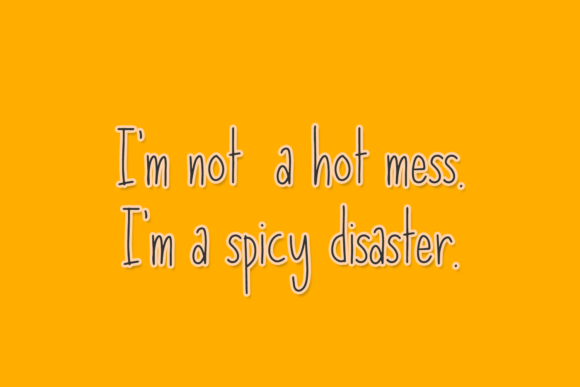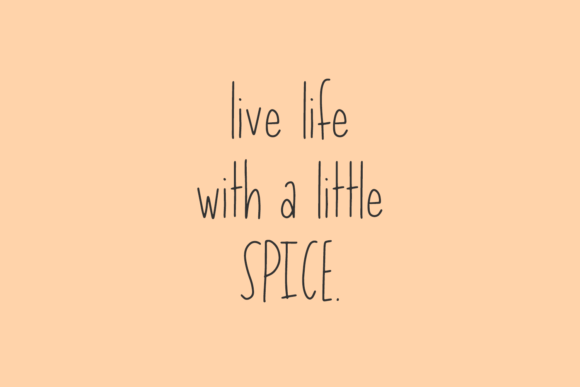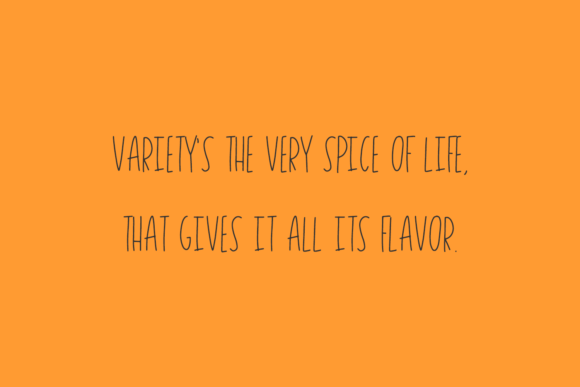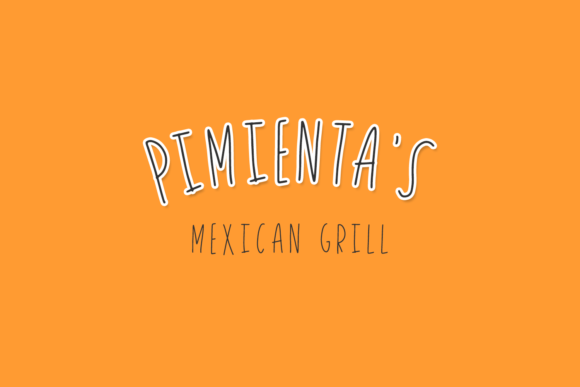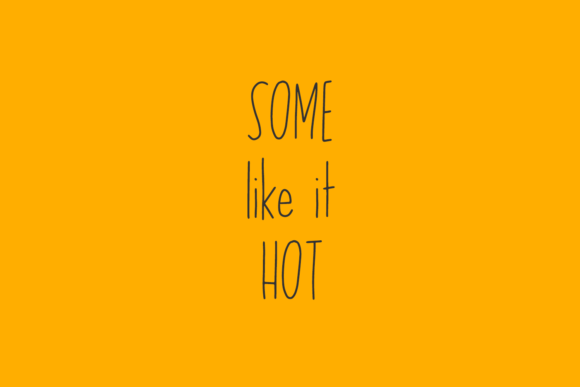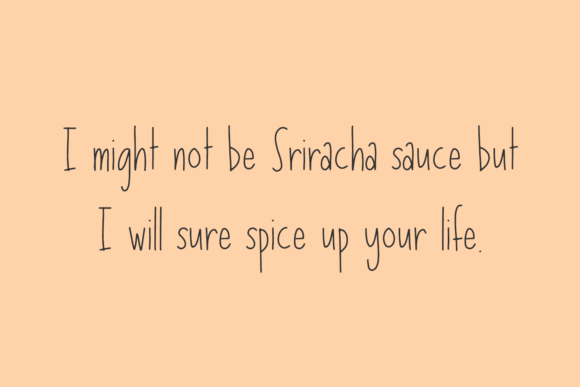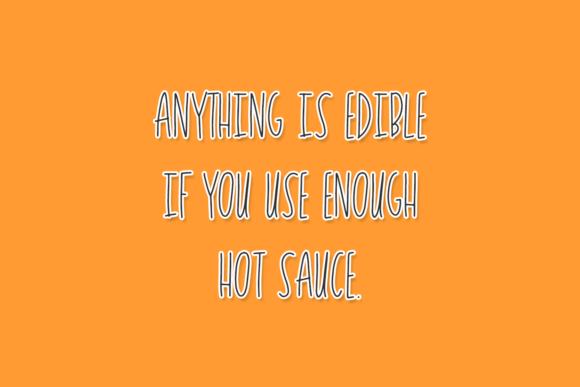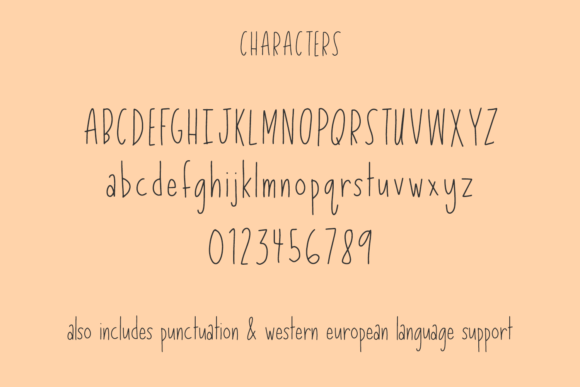
Habanero Jelly Font
About Habanero Jelly Font
Habanero Jelly is a thin lettered and beautiful script font, that can be used for all chalkboard quotes or teaching material! Its authentic look will add a personal and realistic feel to your designs.